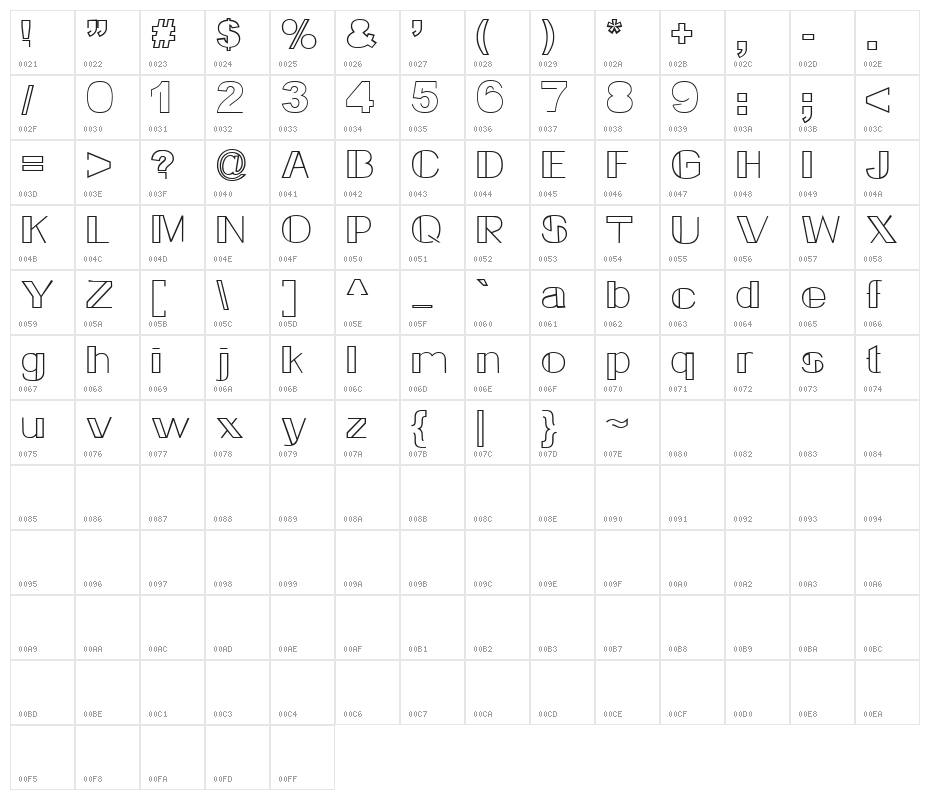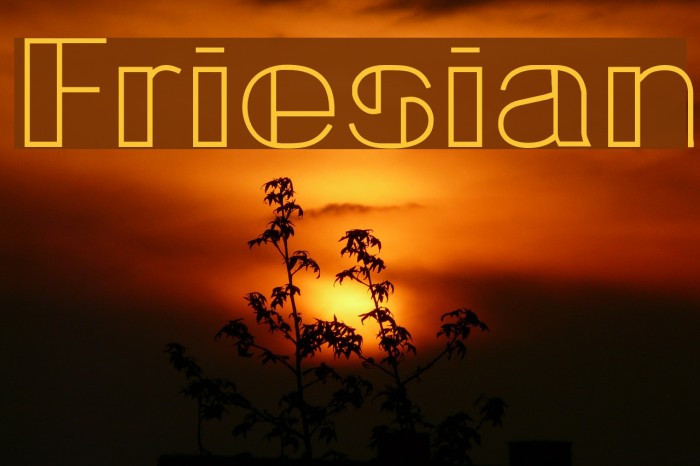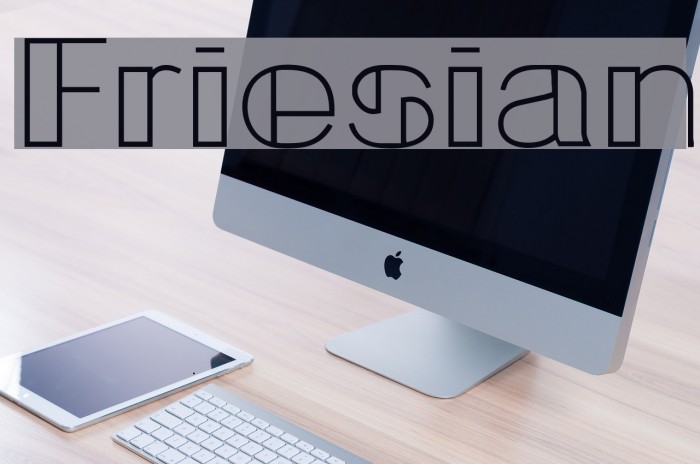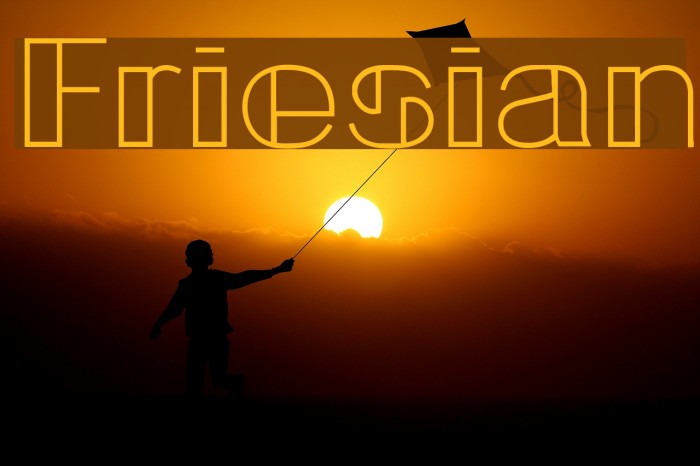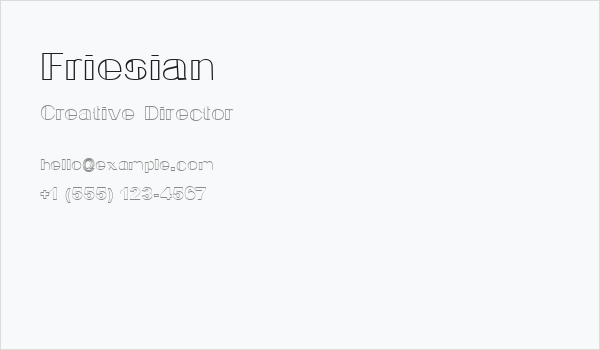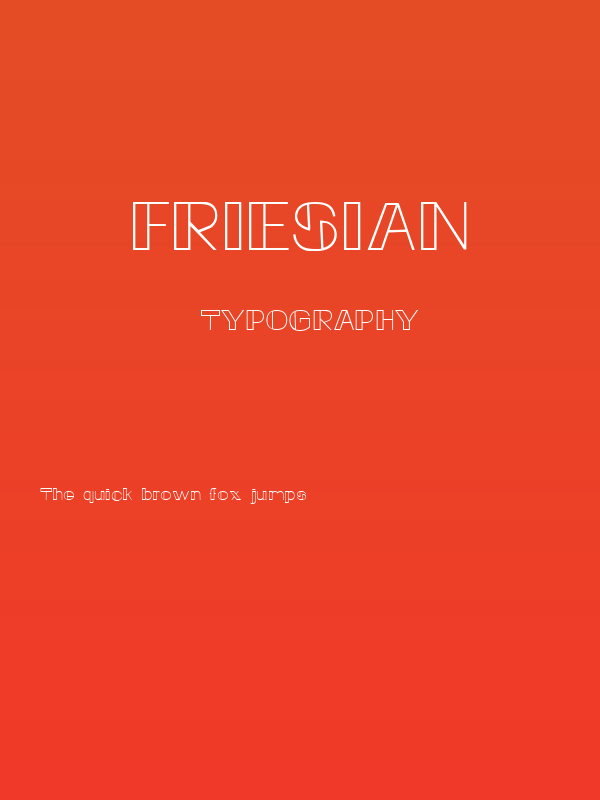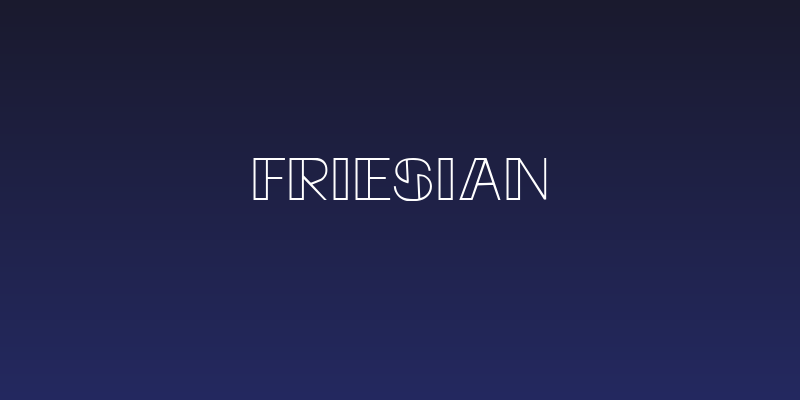
Friesian Font
Friesian Description
This font features a unique blend of geometric and modern elements, characterized by its clean lines and open counters. The uppercase letters exhibit a distinct angularity, while the lowercase maintains a more rounded and approachable form. The numerals are consistent with the overall style, offering a harmonious balance between readability and aesthetic appeal. The special characters are thoughtfully designed to complement the alphabet, making this font versatile for various applications. Its open and airy design lends itself well to projects that require a contemporary and sophisticated look.
| Use Case | Headlines, Logos, Digital Interfaces |
| Proposed Projects | Ideal for branding, editorial design, and digital interfaces where a modern and clean aesthetic is desired. |